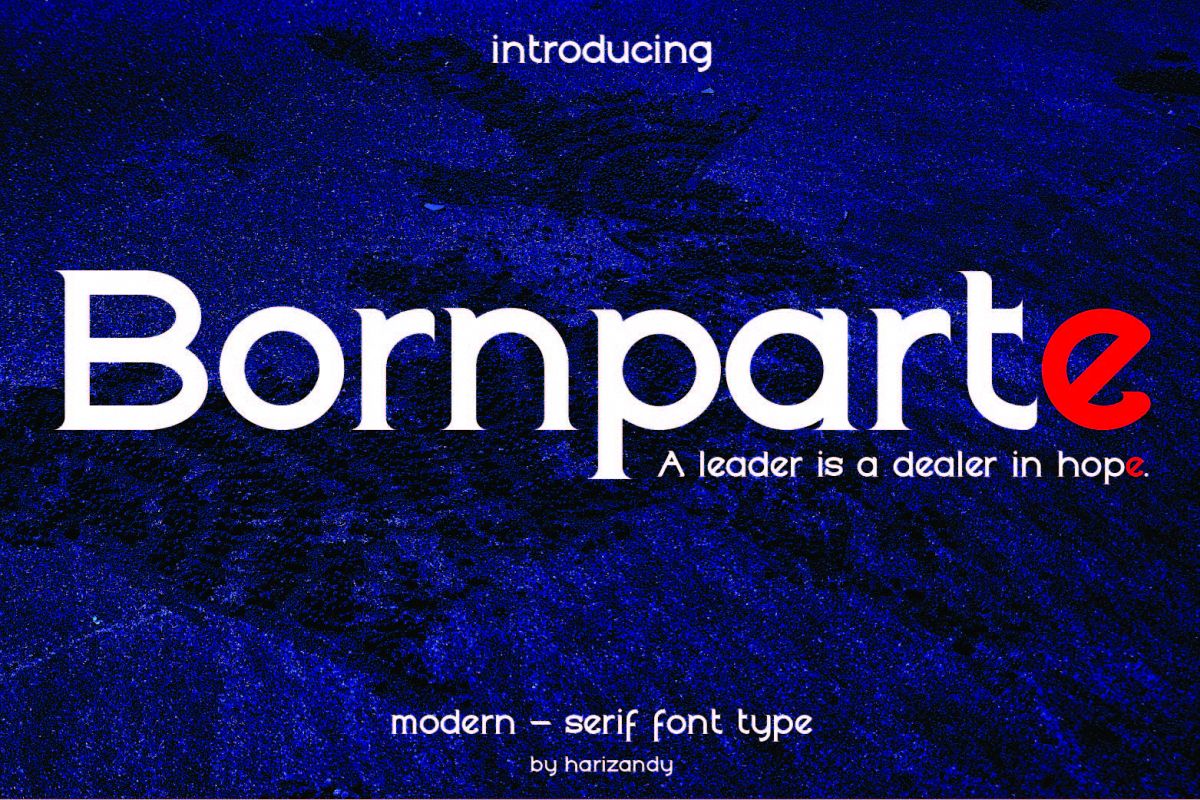
Bornparte
Bornparte serif is a display serif font comes with 2 set of upper case (allcaps). Great for brand identity, poster design, website / display, editorial, headline, logo and more.